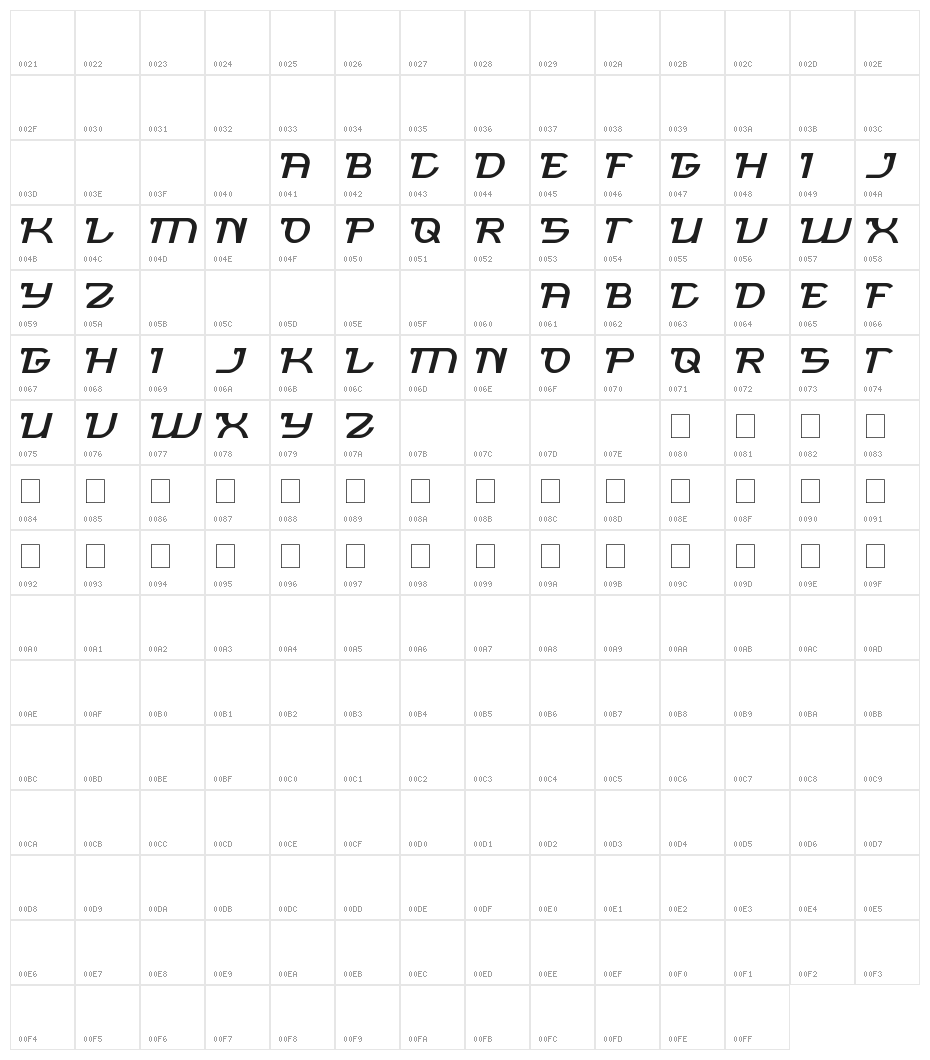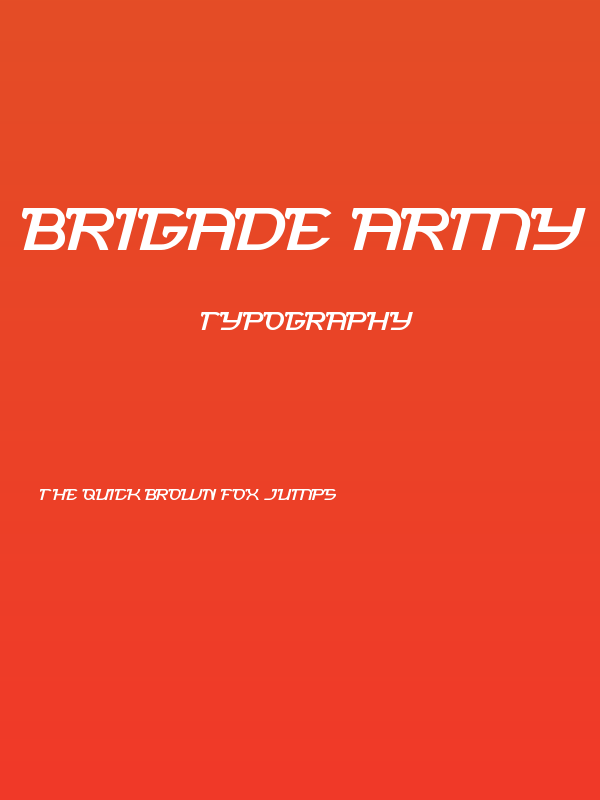
brigade army Font
brigade army Description
This font features a bold and dynamic style with a distinct military-inspired aesthetic. The characters are angular and slightly condensed, giving a sense of strength and precision. The uppercase letters are uniform in height, while the lowercase letters maintain a consistent style that complements the uppercase. The numbers and special characters follow the same design principles, ensuring a cohesive look across all text. The font's strokes are thick and consistent, providing a strong visual impact. The overall design is modern yet reminiscent of classic military typefaces, making it suitable for projects that require a bold and authoritative presence.
| Proposed Projects | Ideal for military-themed designs, posters, branding, and apparel. |